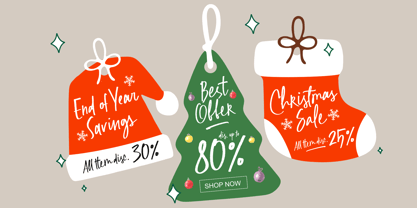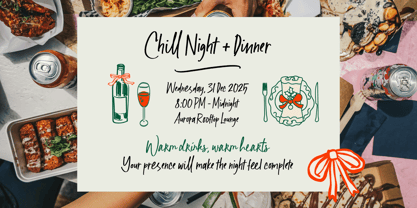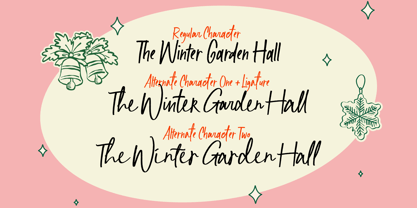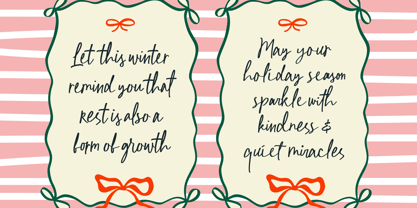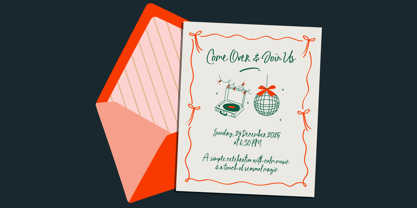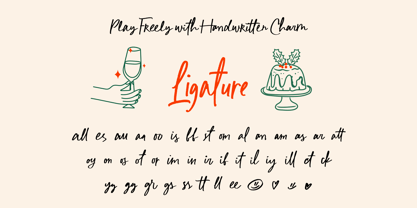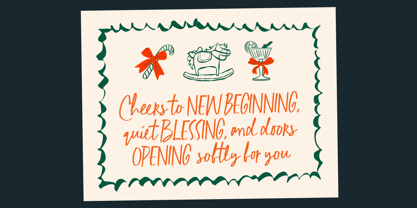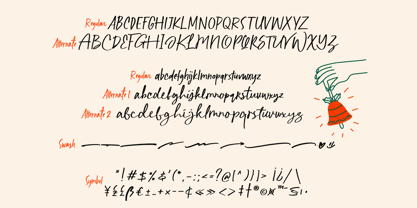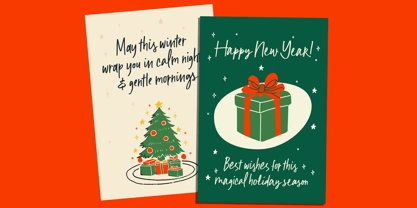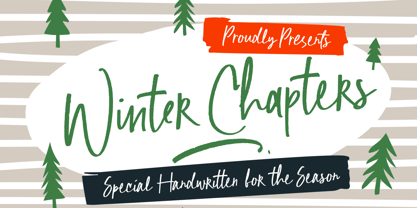
Winter Chapters
by Agny Hasya Studio
The Winter Chapters Font Family was designed by Firman Maulana and published by Agny Hasya Studio. Winter Chapters contains 1 styles.
Winter Chapters is a charming handwritten font designed to capture the cozy spirit of winter. With its warm strokes and natural flow, this font adds a festive, heartfelt touch to every project, making it perfect for celebrating the magic of the cold season. Ideal for winter events, Christmas, seasonal promotions, branding, holiday quotes, product packaging, greeting cards, social media posts, and standout display text. Winter Chapters brings a soft, inviting personality that feels joyful and authentic. Whether you're creating a warm holiday message or a stylish winter sale headline, this font provides the perfect seasonal vibe. To enhance your designs, this font features special ligatures, unique stylistic alternates, and swashes, offering creative flexibility and beautifully varied lettering. Stay warm, stay inspired, and enjoy the holiday season! Warm regards, agnyhasyastudio